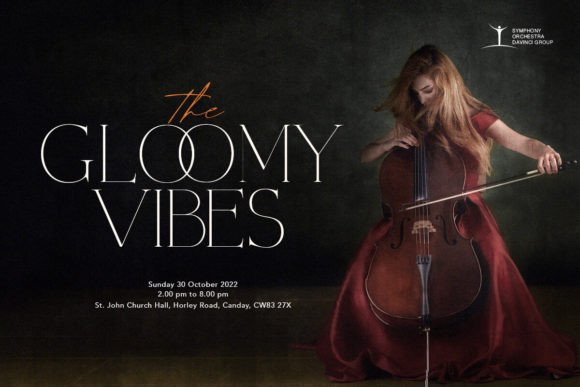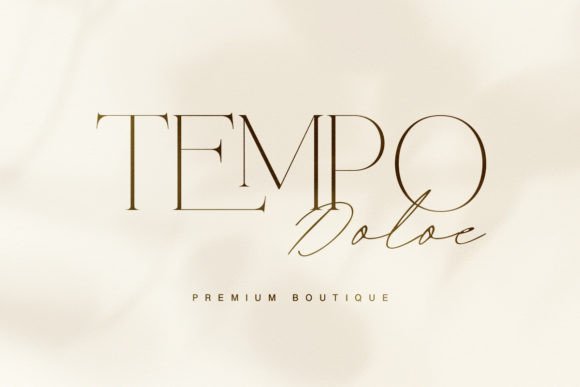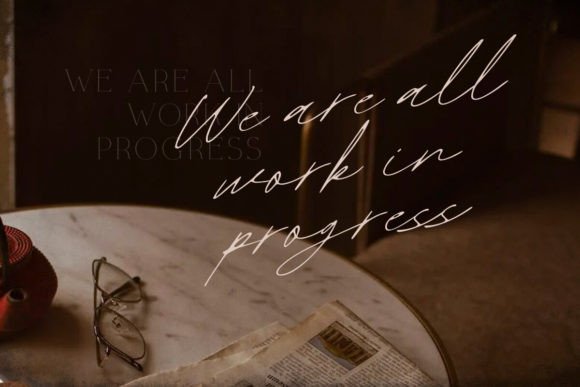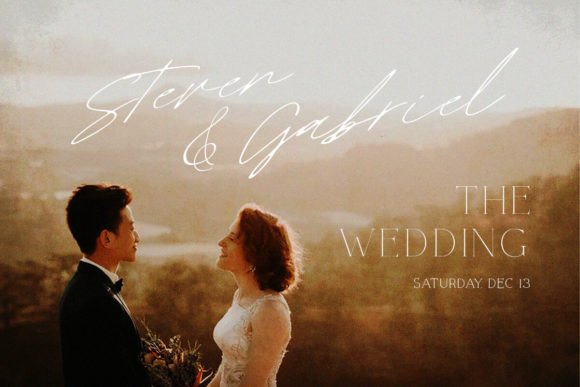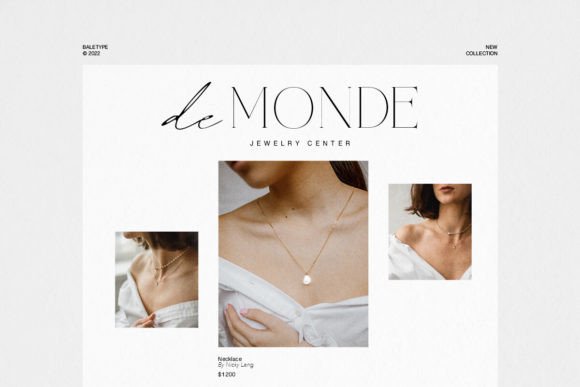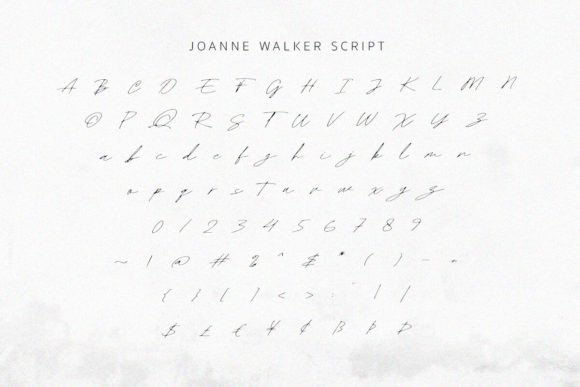
Introduction to Joanne Smith Font Font
Fonts play a crucial role in design, and the Joanne Smith Font font is a typeface that brings both character and versatility to any project. Whether you’re working on a branding project, a website, or a print design, the Joanne Smith Font font offers a unique style that can elevate your work.
Joanne Smith is a font duo that contains elegant serif and natural handwriting script.
You can use this fonts for any purpose, such as branding, logo, and suitable for wedding invitations Donβt need to find the perfect match of the fonts for your new project, you can get two in this one pack.
Key Features of Joanne Smith Font Font
Why Choose Joanne Smith Font Font?
The Joanne Smith Font font is more than just a typeface β it’s a design tool that helps you communicate your message with style and clarity. Its unique character set and versatile design make it suitable for a wide range of applications, from elegant invitations to bold headlines.
With its carefully crafted letterforms and balanced proportions, the Joanne Smith Font font ensures readability and visual appeal across all mediums.
What makes Joanne Smith Font font special?
The Joanne Smith Font font stands out with its unique design, exceptional readability, and versatility across various design applications.